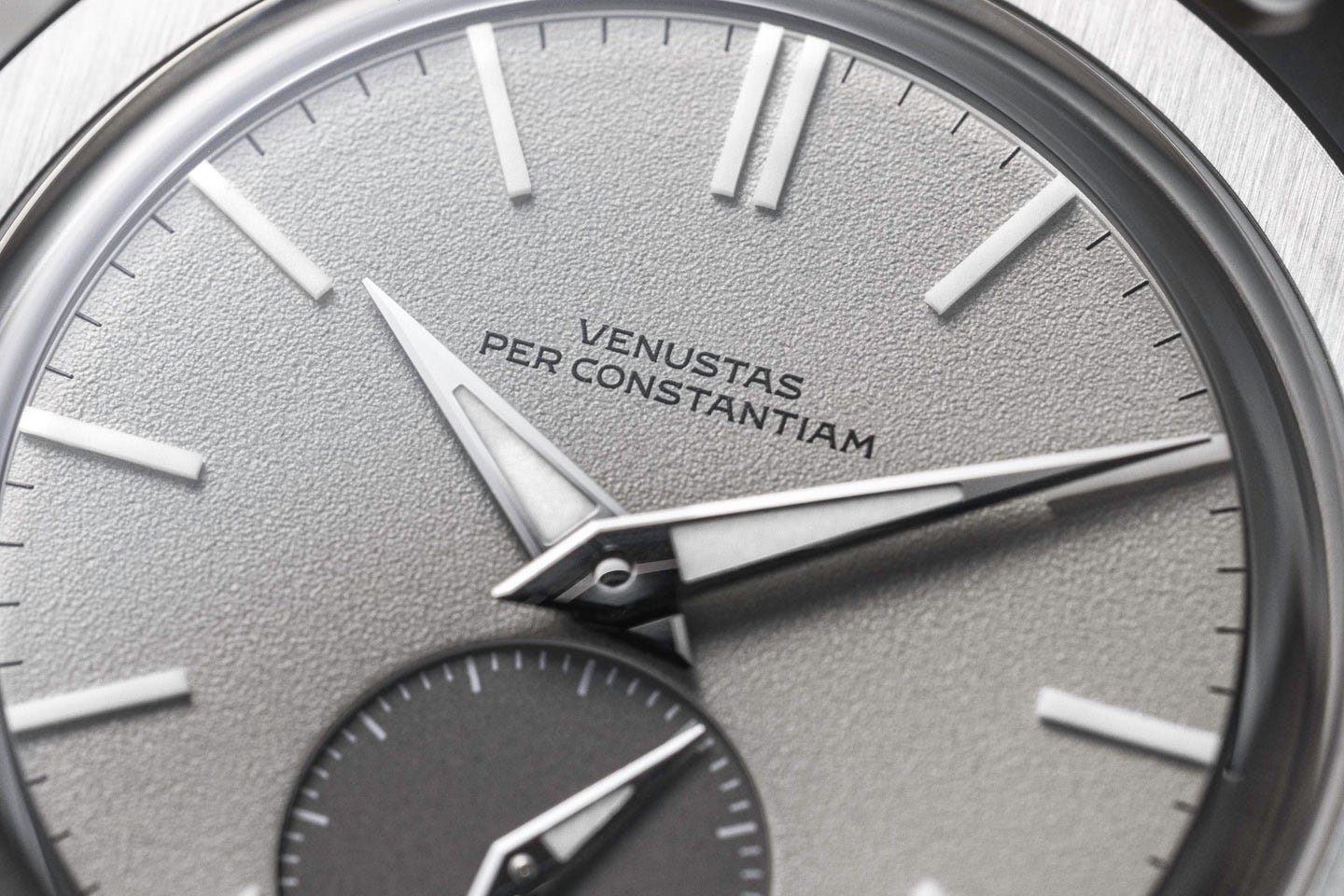
Watching Type
A newsletter about watch design and typography
Hello, and welcome to Watching Type. I’m Samuel Baker, a designer based in London. I’m also a watch enthusiast and (very small-time) collector. You may be reading this because you’ve seen my work for Thomas van Straaten’s watch brand, VPC, but whatever the reason, I appreciate you being here.
Naturally, I’m very interested in watch design and, like others, I’ve often thought about why watches are designed the way they are, and why many brands seem to do such a poor typographic job with their modern products compared to vintage watches from the “glory days” (whatever / whenever they were). But also, I love to see new brands and new watches emerging all the time, and some of them are doing really interesting and novel things with their designs. So, I thought I’d start this newsletter to share some of my thoughts on all aspects of watch design and typography.
It might be my critique of a watch that’s doing the rounds on Instagram, or dissecting a new product or rebrand that’s just launched. It might be to do with a watch I happen to have seen out in the wild, at a meetup, or an exceptional vintage piece. Or, it might be a look at some of my own work and processes. It could even be about something else entirely!
It won’t (usually) be a particularly long read, but I might get into a deep dive now and again. I can get nerdy about this stuff, but I’ll try to keep a lid on that side of things.
Some likely topics for my first few issues include: the recently revealed 70th anniversary Polerouters; the Cubitus, and Patek’s love affair with Arial; a typographic breakdown of the beautiful Heuer Cortina I saw on Instagram the other week; what makes a Breguet numeral?; and some backstory on the VPC Type 37HW which is due to start delivering to customers in early December. I’m aiming for a weekly cadence but hey – let’s see how things go.